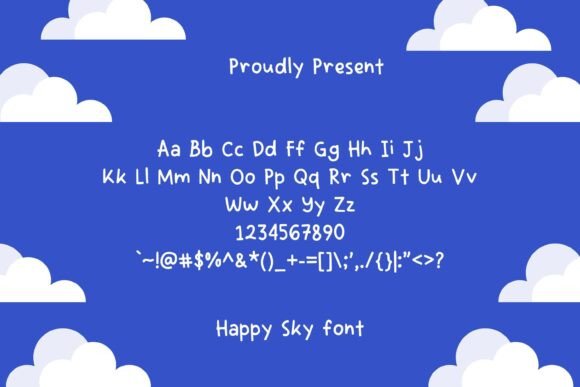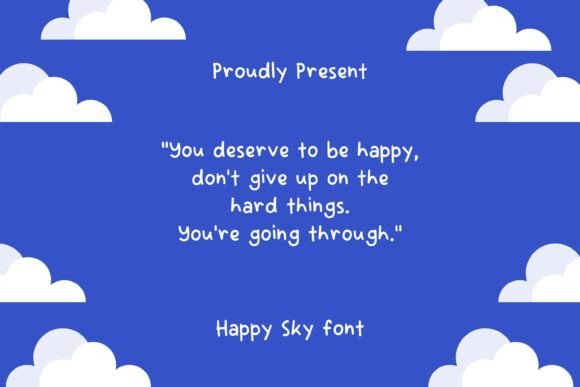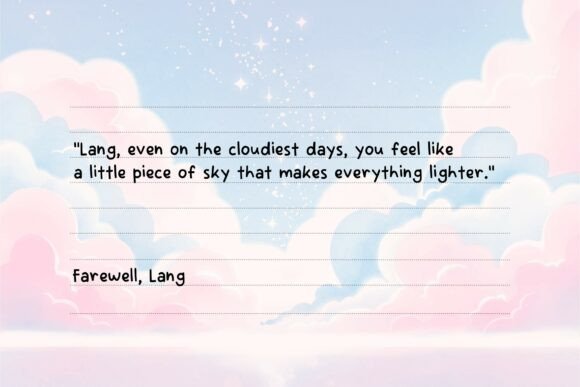
Introducing Happy Sky Font: The Perfect Choice for Heartfelt Designs
Are you looking for a font that captures the essence of warmth, innocence, and playfulness? Look no further than Happy Sky Font, a beautiful handwritten font that brings a soft, childlike charm to any design. With its rounded strokes and gentle flow, Happy Sky is perfect for creating letters, notes, and designs that speak from the heart.
The Characteristics of Happy Sky Font
Happy Sky Font is a playful and heartfelt handwritten font that is designed to evoke feelings of nostalgia and warmth. Its rounded strokes and gentle flow give it a soft, childlike quality that is perfect for creating designs that are both whimsical and sincere. The font’s playful nature makes it ideal for use in a variety of design projects, from invitations and greeting cards to blog posts and social media graphics.
The Benefits of Using Happy Sky Font
So why choose Happy Sky Font for your next design project? Here are just a few benefits of using this beautiful font:
- Emotional Connection: Happy Sky Font is designed to create an emotional connection with your audience. Its playful and heartfelt nature makes it perfect for expressing gratitude, telling dreamy stories, or simply adding a touch of warmth to your designs.
- Versatility: Happy Sky Font is a versatile font that can be used in a variety of design projects, from digital to print. Whether you’re creating a social media graphic, a blog post, or a handmade craft, this font is sure to add a touch of personality to your design.
- Ease of Use: Happy Sky Font is easy to use and pairs well with a variety of other fonts. Its gentle flow and rounded strokes make it easy to read, even at small sizes.
Happy Sky Font is a perfect choice for designers and crafters who want to add a personal touch to their work. Whether you’re creating custom invitations, designing a brand identity, or making handmade crafts, this font is sure to inspire your creativity. Here are a few ways you can use Happy Sky Font in your designs:
- Handmade Crafts: Add a touch of whimsy to your handmade crafts, such as knitted items, jewelry, or home decor, with Happy Sky Font.
- Custom Invitations: Create custom invitations for special occasions, such as weddings, birthdays, or baby showers, with Happy Sky Font.
- Social Media Graphics: Add a personal touch to your social media graphics, such as Instagram posts or Facebook graphics, with Happy Sky Font.
Tips for Using Happy Sky Font
Here are a few tips for using Happy Sky Font in your designs:
- Pair with Other Fonts: Happy Sky Font pairs well with a variety of other fonts, such as serif or sans-serif fonts. Experiment with different font combinations to find the perfect look for your design.
- Use in Combination with Images: Happy Sky Font looks great in combination with images, such as photographs or illustrations. Use the font to add a personal touch to your images.
- Experiment with Colors: Happy Sky Font looks great in a variety of colors, from bright and bold to soft and pastel. Experiment with different colors to find the perfect look for your design.
Happy Sky Font is a beautiful handwritten font that captures the essence of warmth, innocence, and playfulness. With its rounded strokes and gentle flow, this font brings a soft, childlike charm to any design. Whether you’re a designer or crafter, Happy Sky Font is perfect for creating heartfelt designs that speak from the heart. So why not give it a try and see how it can add a touch of lightness and sincerity to your next design project?